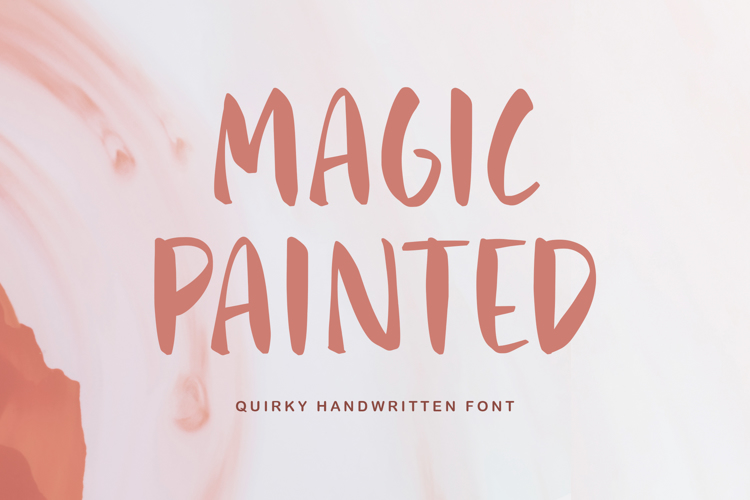
Magic Painted Font
Magic Painted -Quirky Handwritten Font
font that is modern and fresh, and will bring a warm and inviting feel to your business. Take advantage of the fonts and experience the magic for yourself.
Magic Painted is perfect for product packaging, branding project, megeenazine, social media, wedding, or just used to express words above the background.